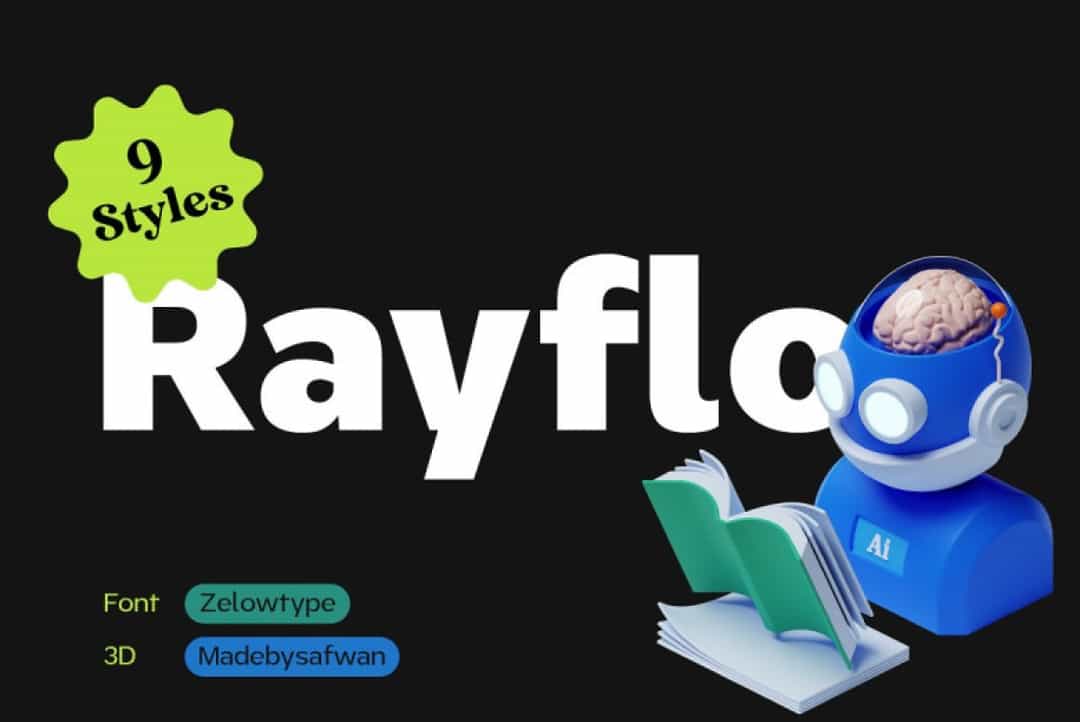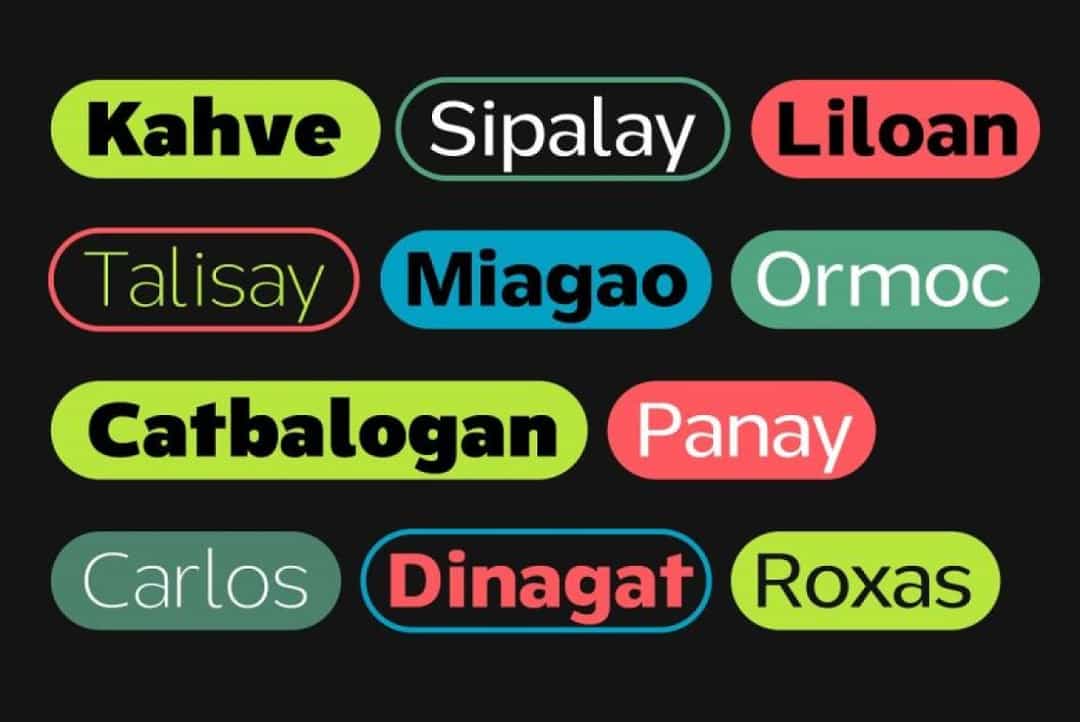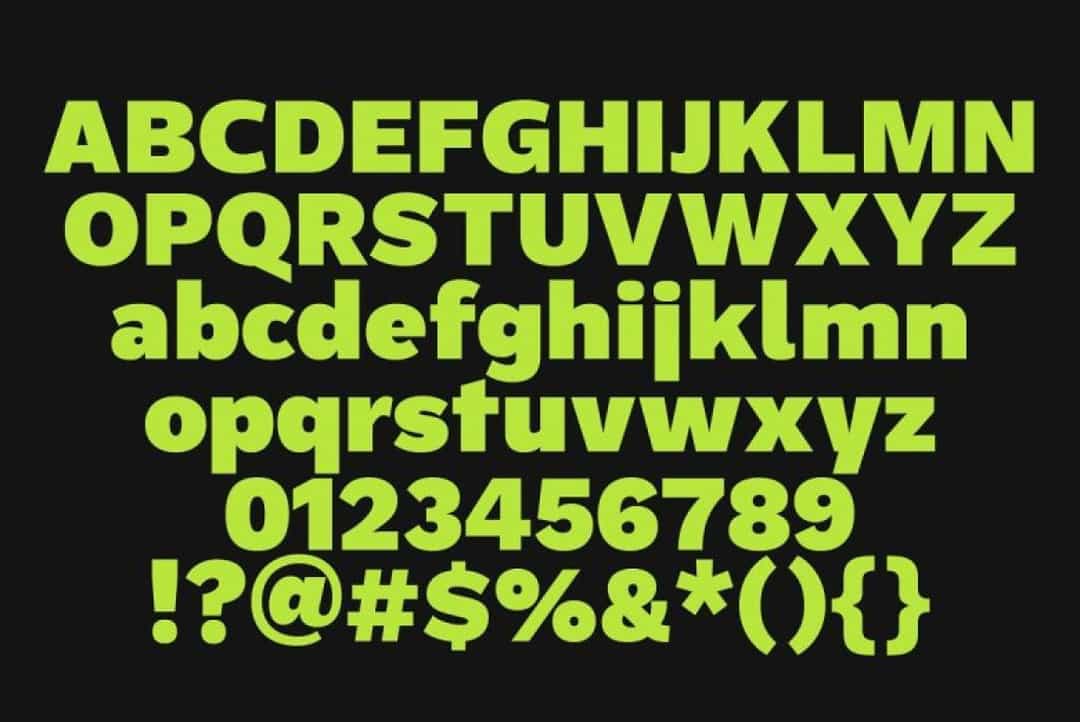
ZT Rayflo is a minimalist font family with no clutter at all, featuring fonts with smooth flowing strokes that offer the ultimate minimalism. Available in nine weights from dark to light, ZT Rayflo can fit seamlessly into your style – always looking stylish and fashionable no matter its placement!